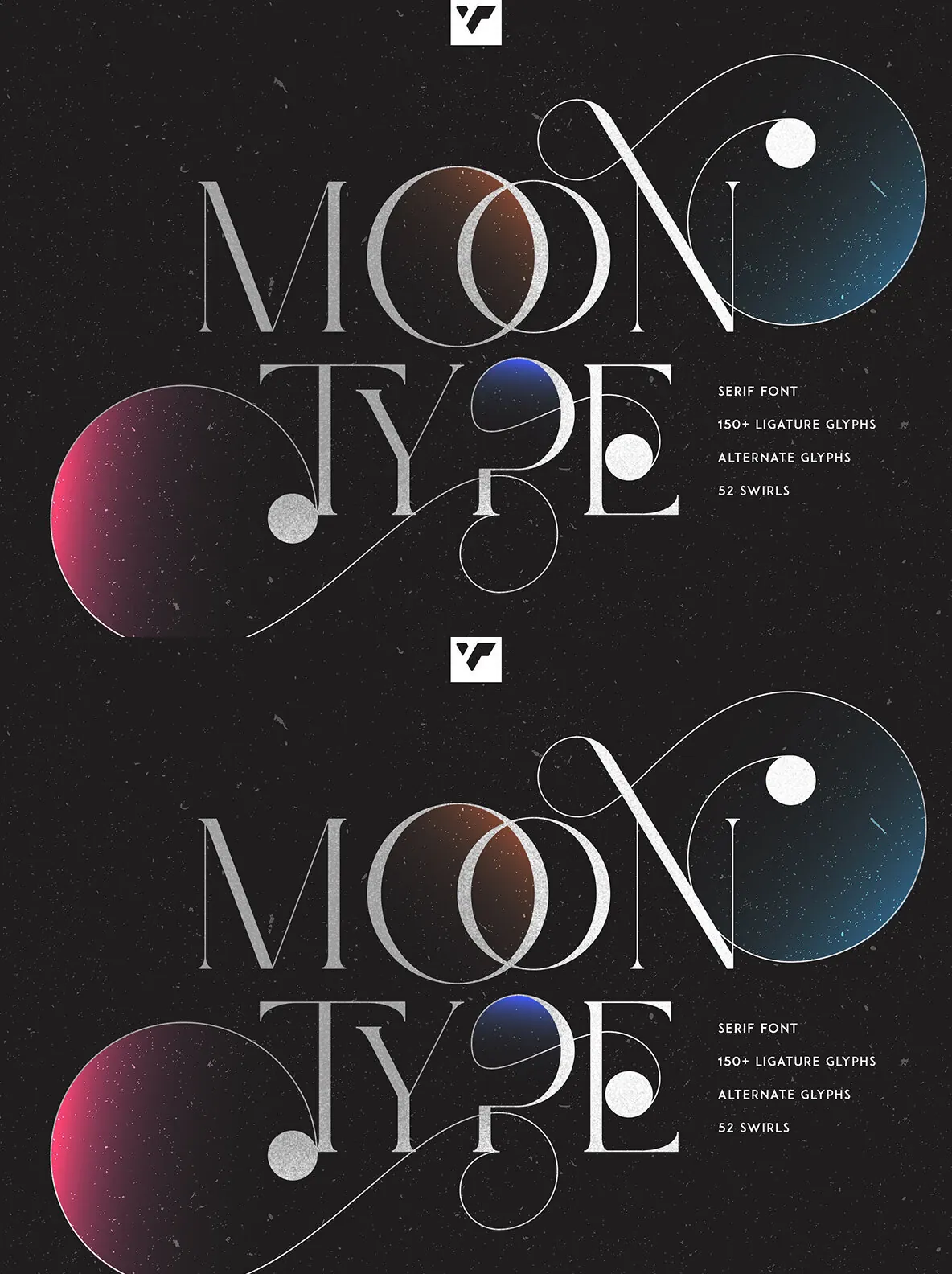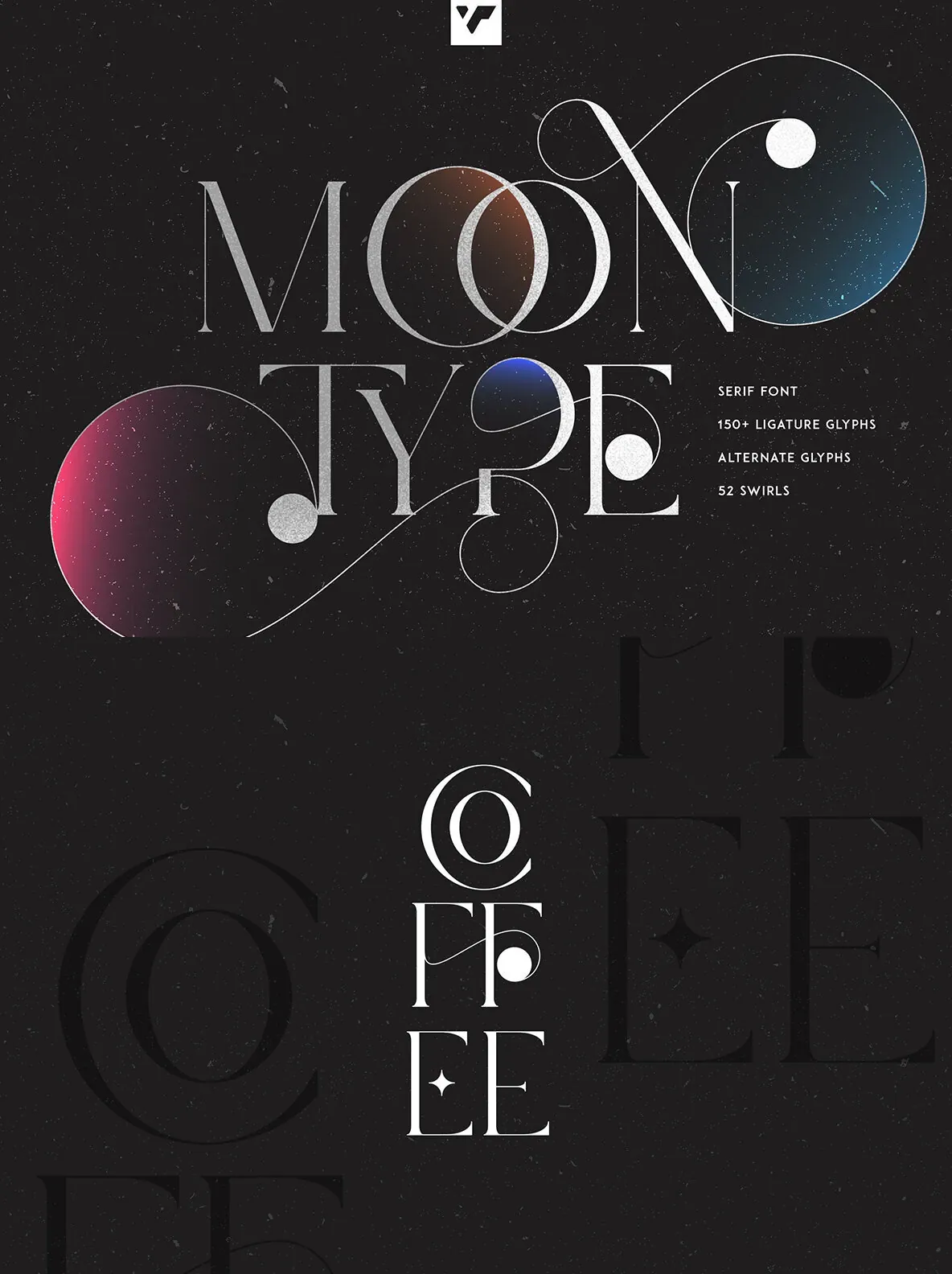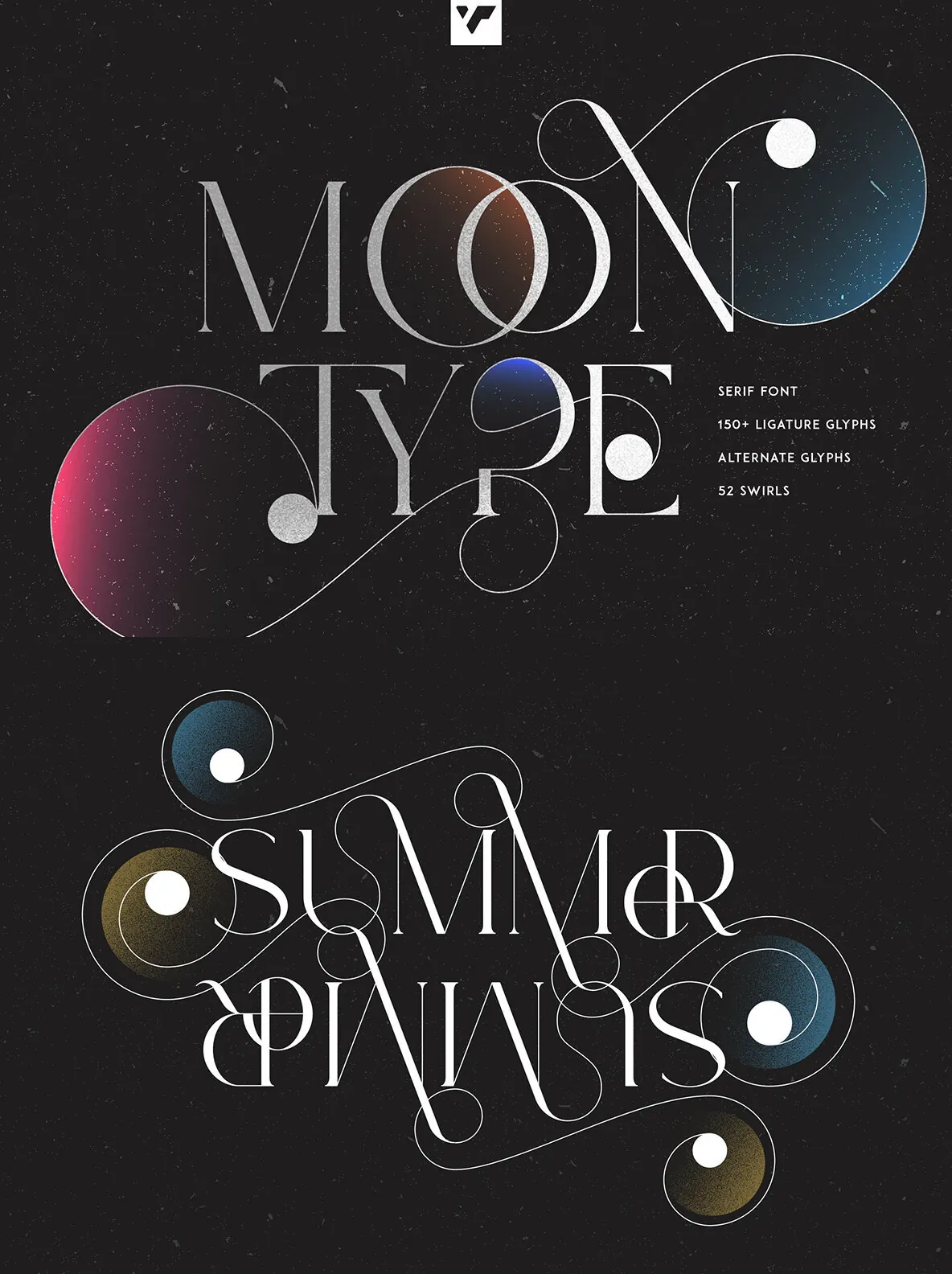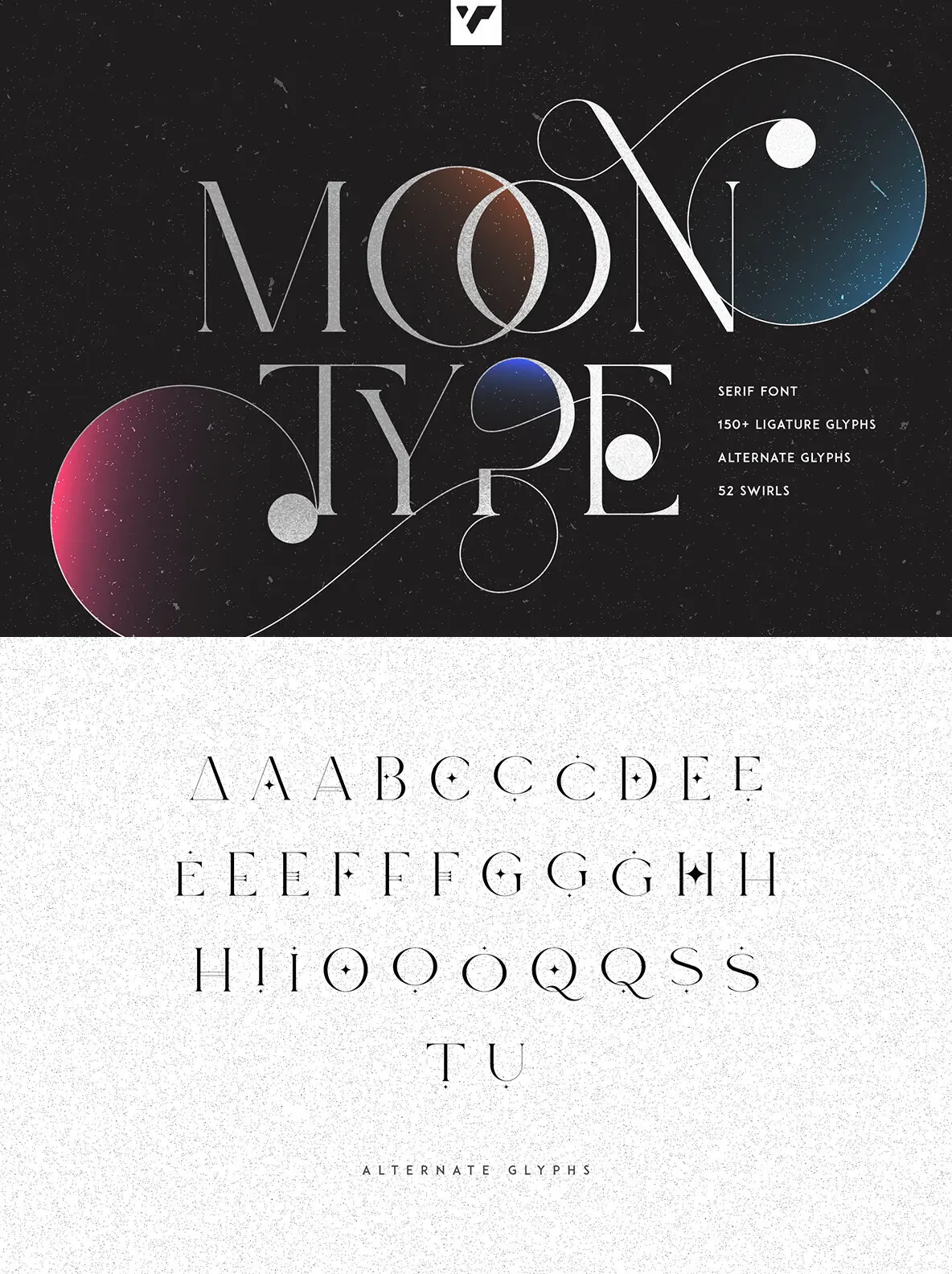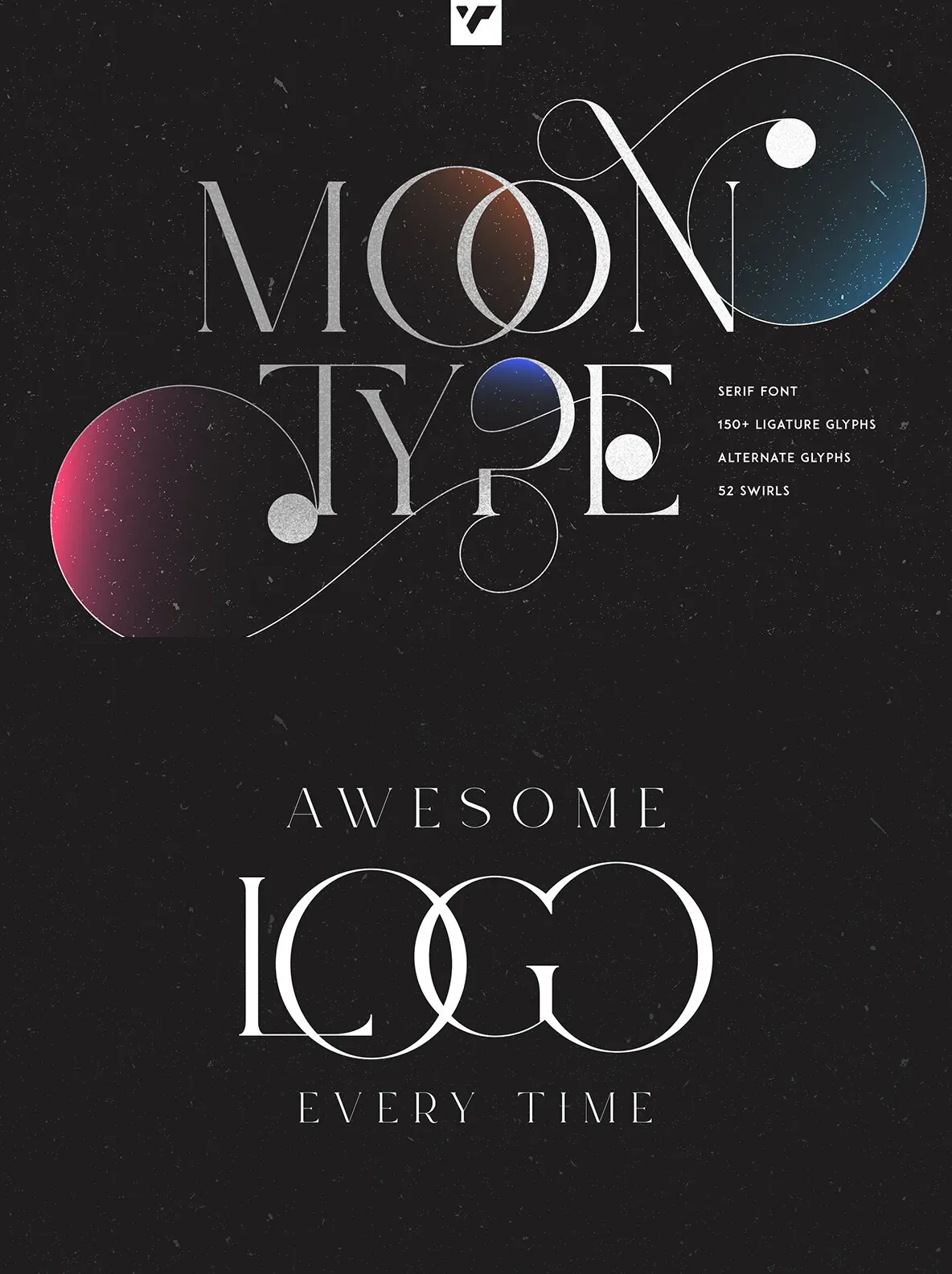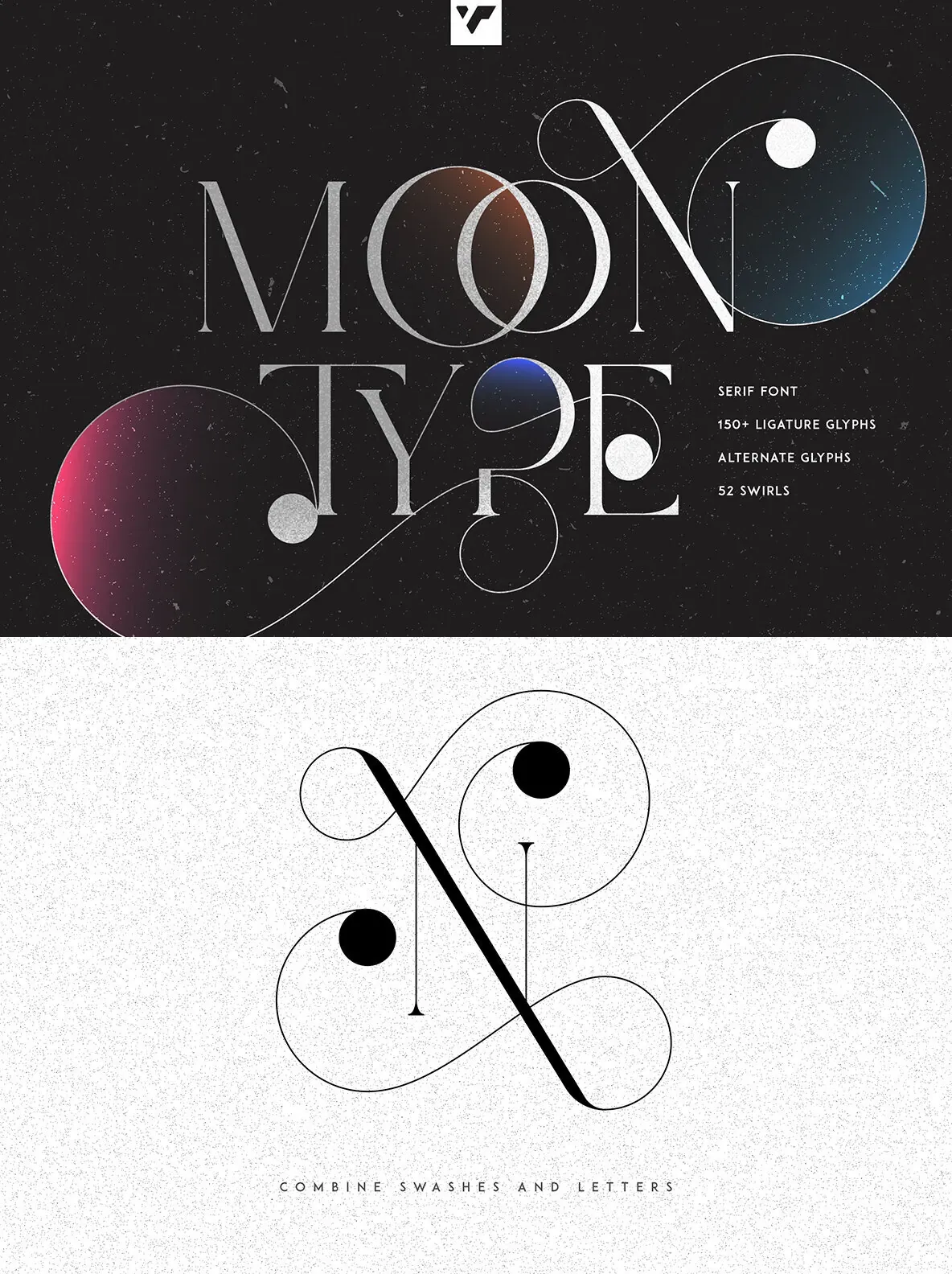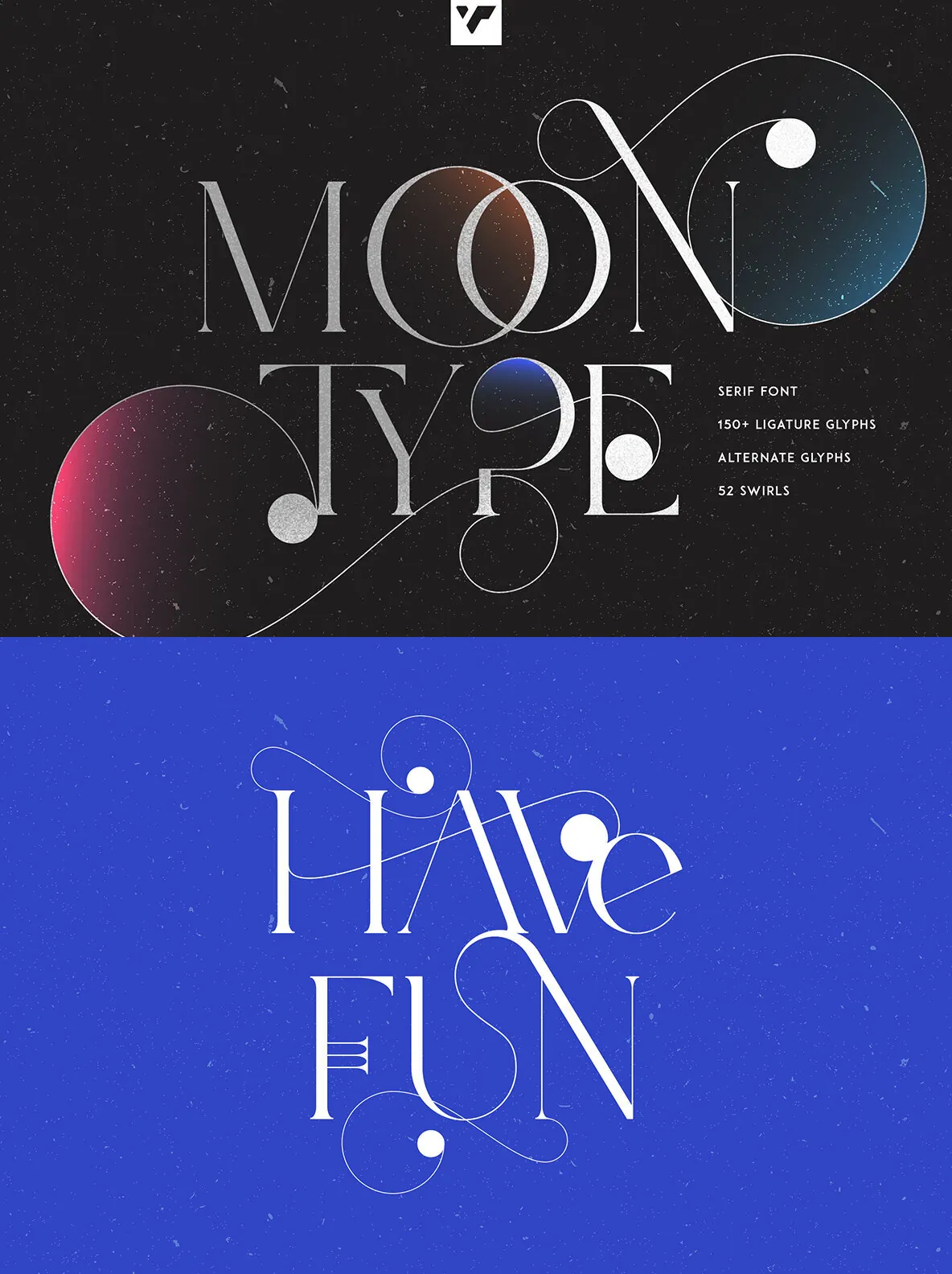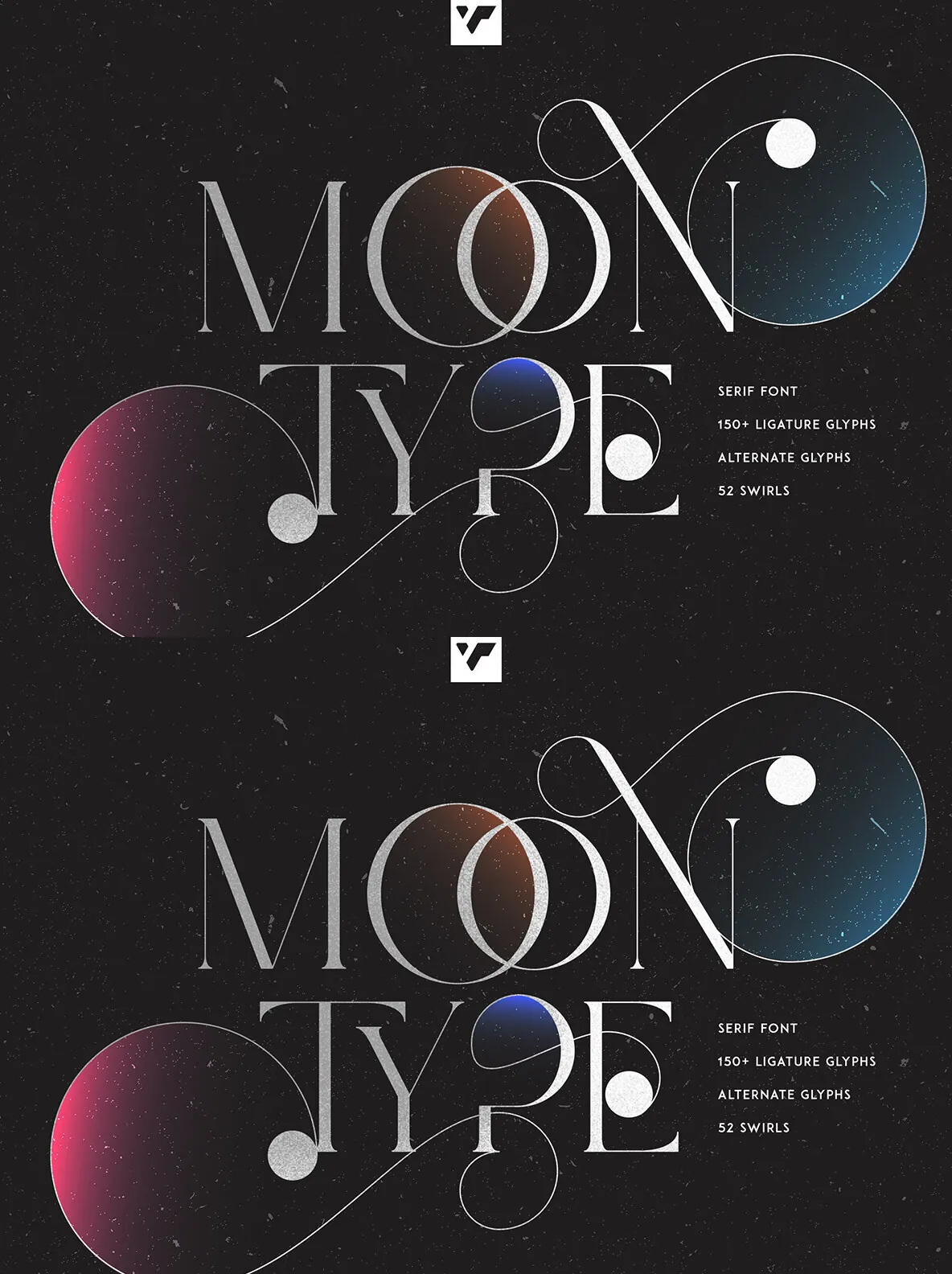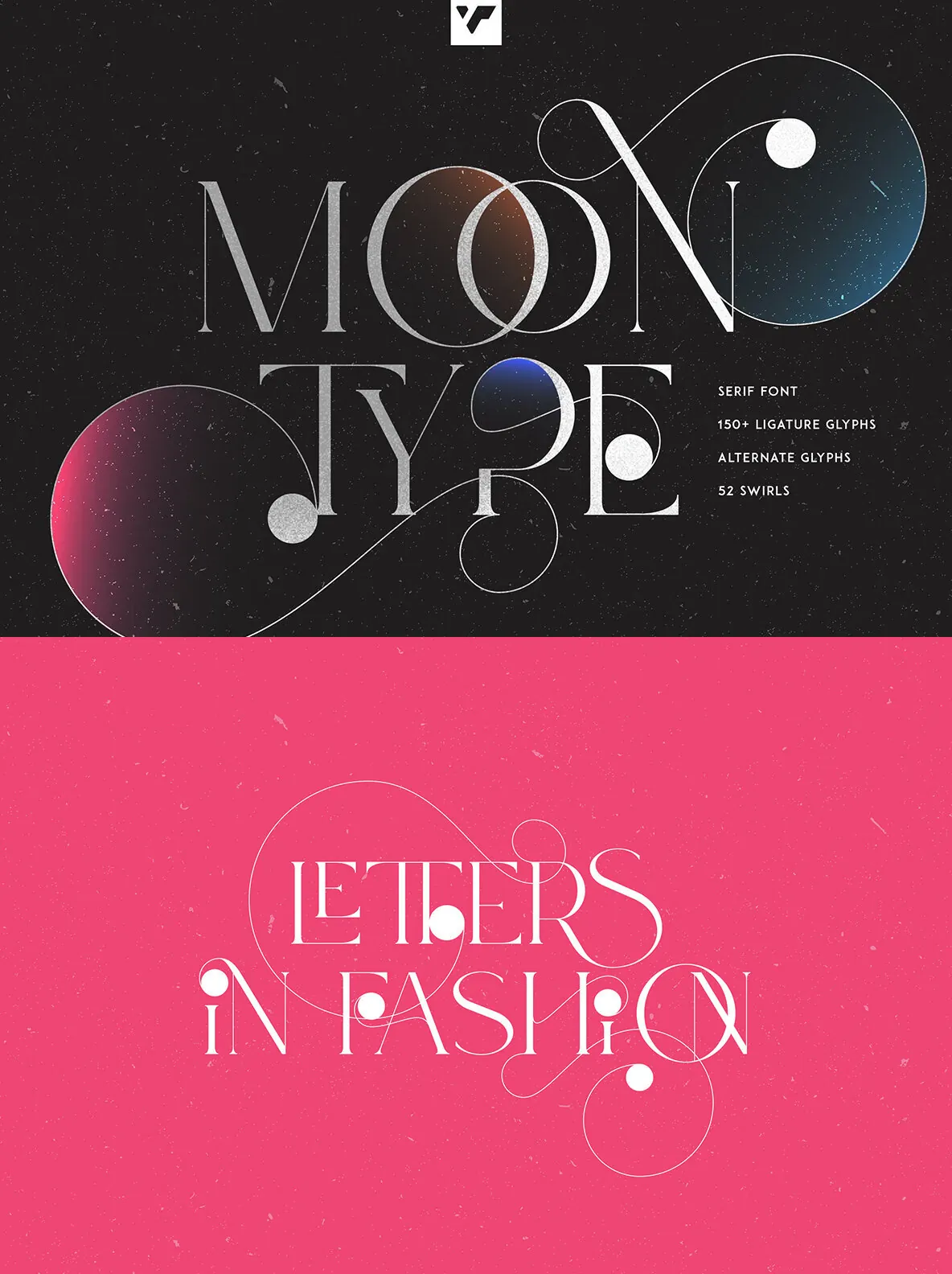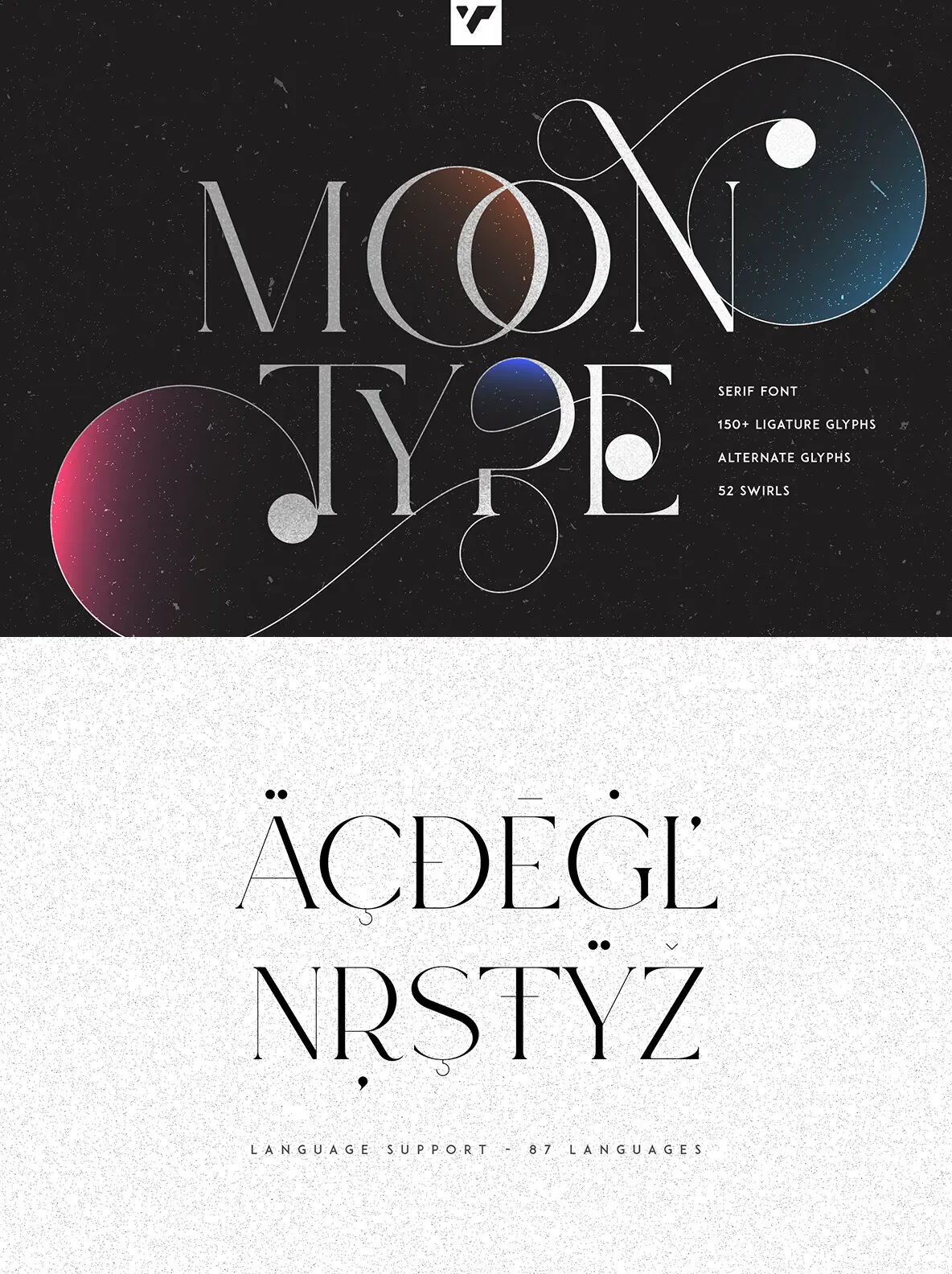
Moon Type: Charming ligatures for standout marks
A versatile serif logo font with a bright, creative tone. Moon Type includes over 150 ligature glyphs and alternate characters, giving you plenty of options for distinctive wordmarks, packaging, and brand identities. The letterforms stay refined while still feeling personable, so your typography can carry both clarity and character across print and digital use.
Moon Type also includes an extensive set of 52 swashes for decorative finishing touches. Use them to shape elegant entry and exit strokes, add rhythm to headlines, or introduce a more bespoke feel to short phrases and logo lockups. The font remains practical as well, with support for 87 languages, making it a reliable choice for international branding and multilingual design systems.
Designed by VP Creative Shop, Moon Type balances charm with utility for designers who want a serif that feels expressive without losing control in layout.